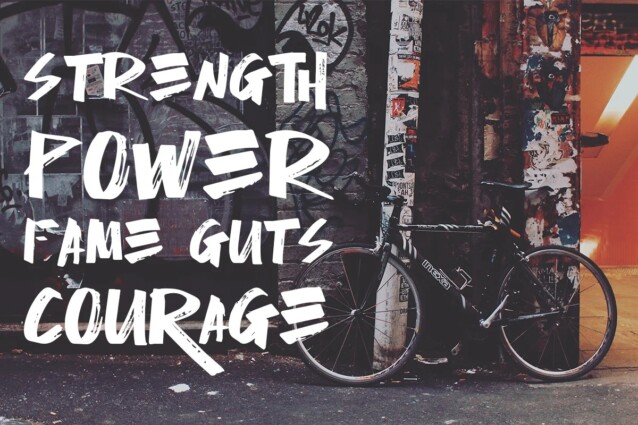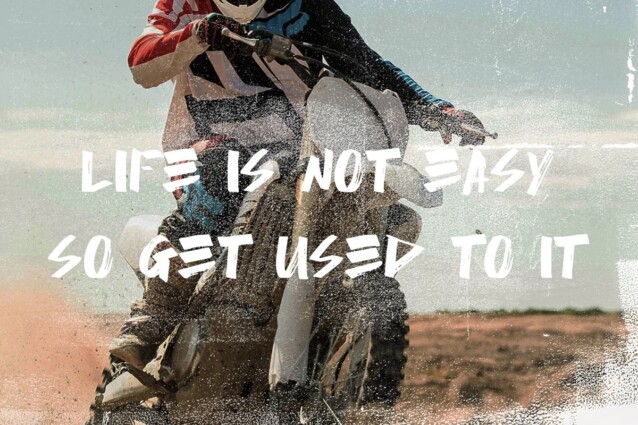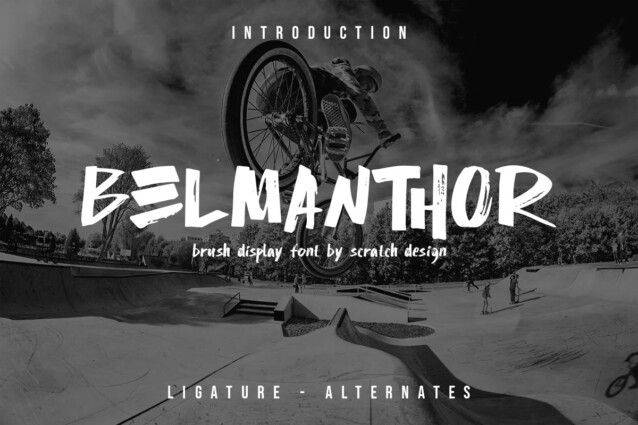
Belmanthor Font
Belmanthor Font is a brush typeface from Scratch Design that exudes a distinctive and rustic charm.This was made by real marker and you will get the sense of adventure, manly, and strong. This font is perfect for logos, advertising, branding, urban-style posters, social media graphics, invitations, header text, album covers, packaging, product designs, merchandise, etc. This font is full of sets such as uppercase, lowercase, alternates, ligatures, and support for multi-language.